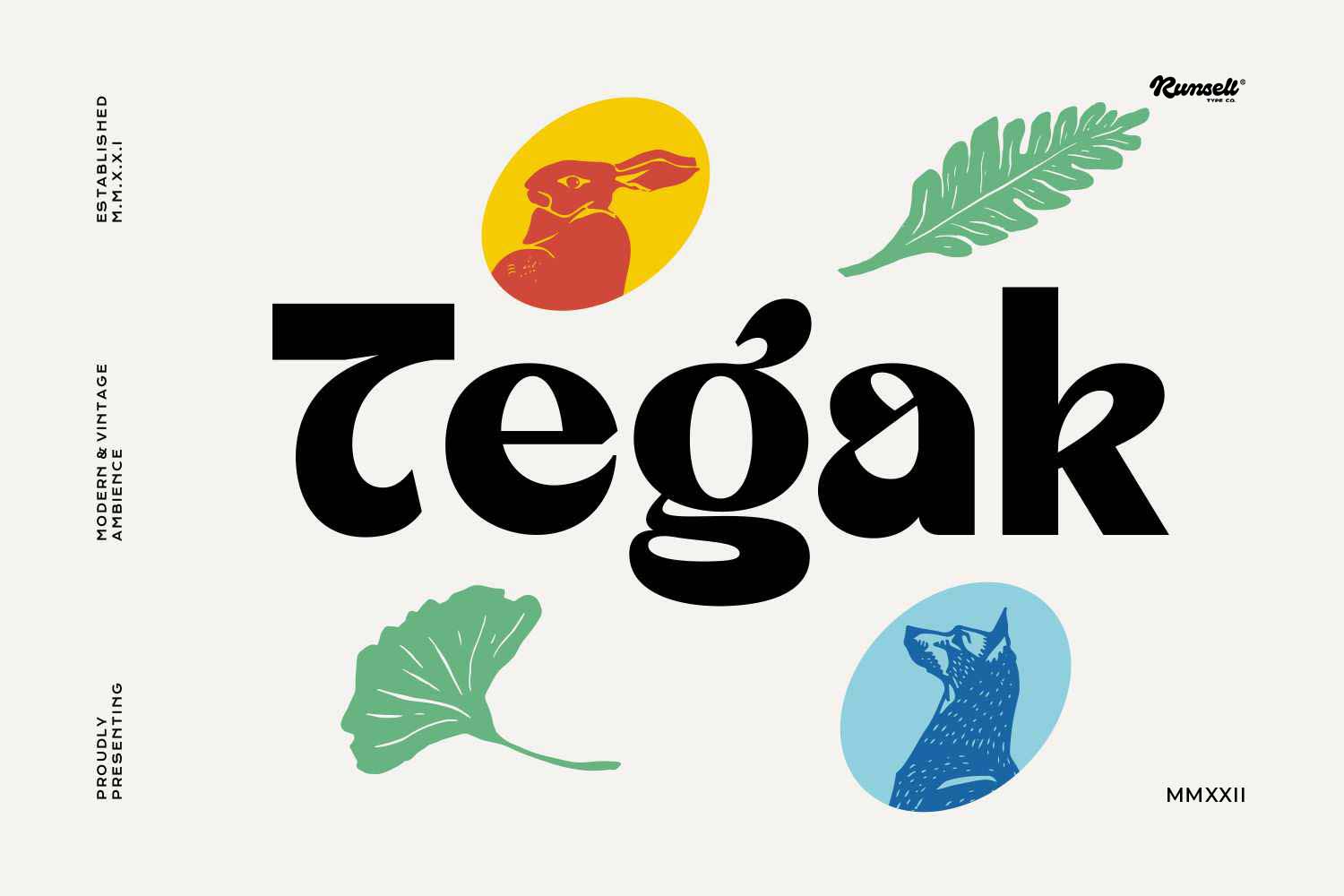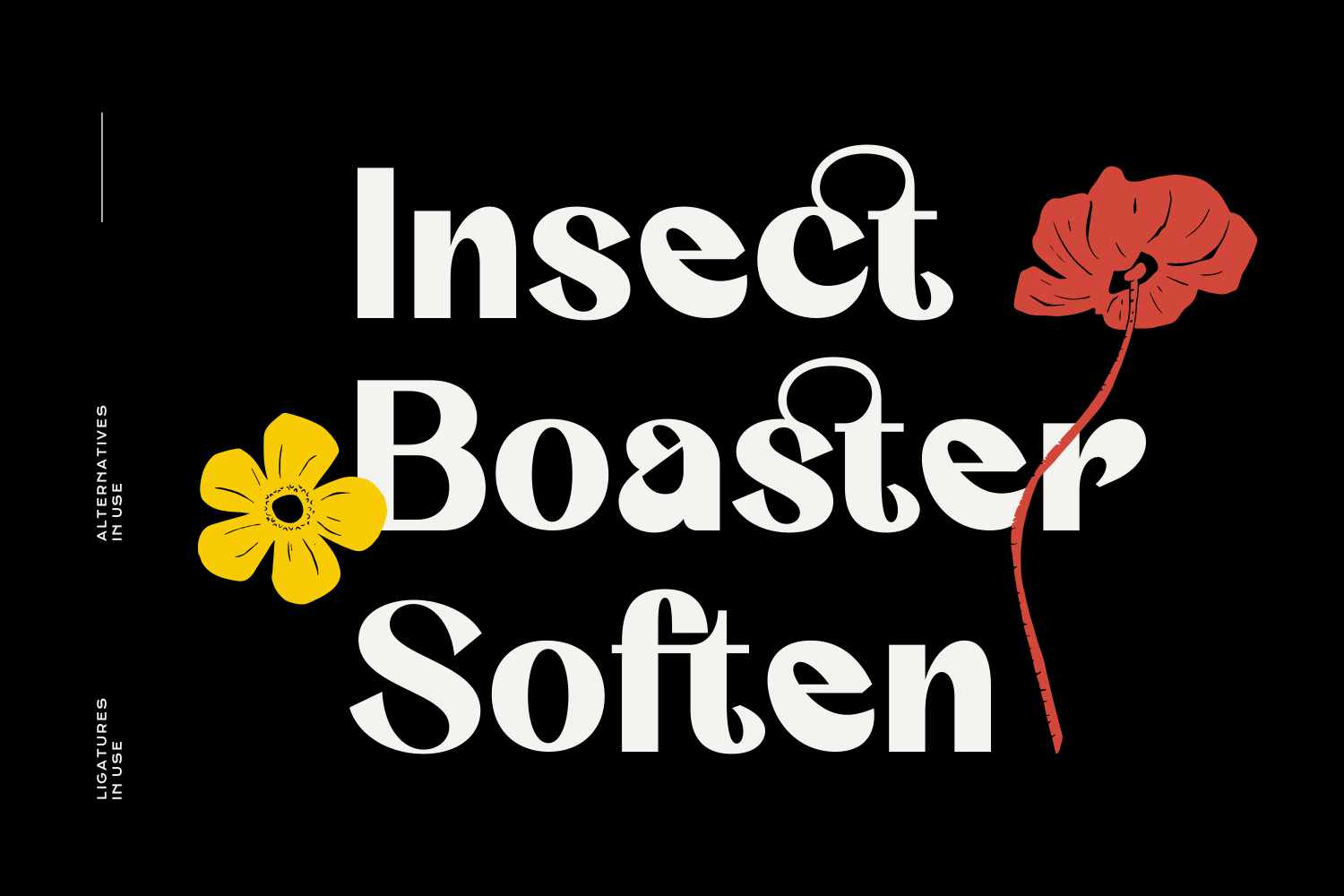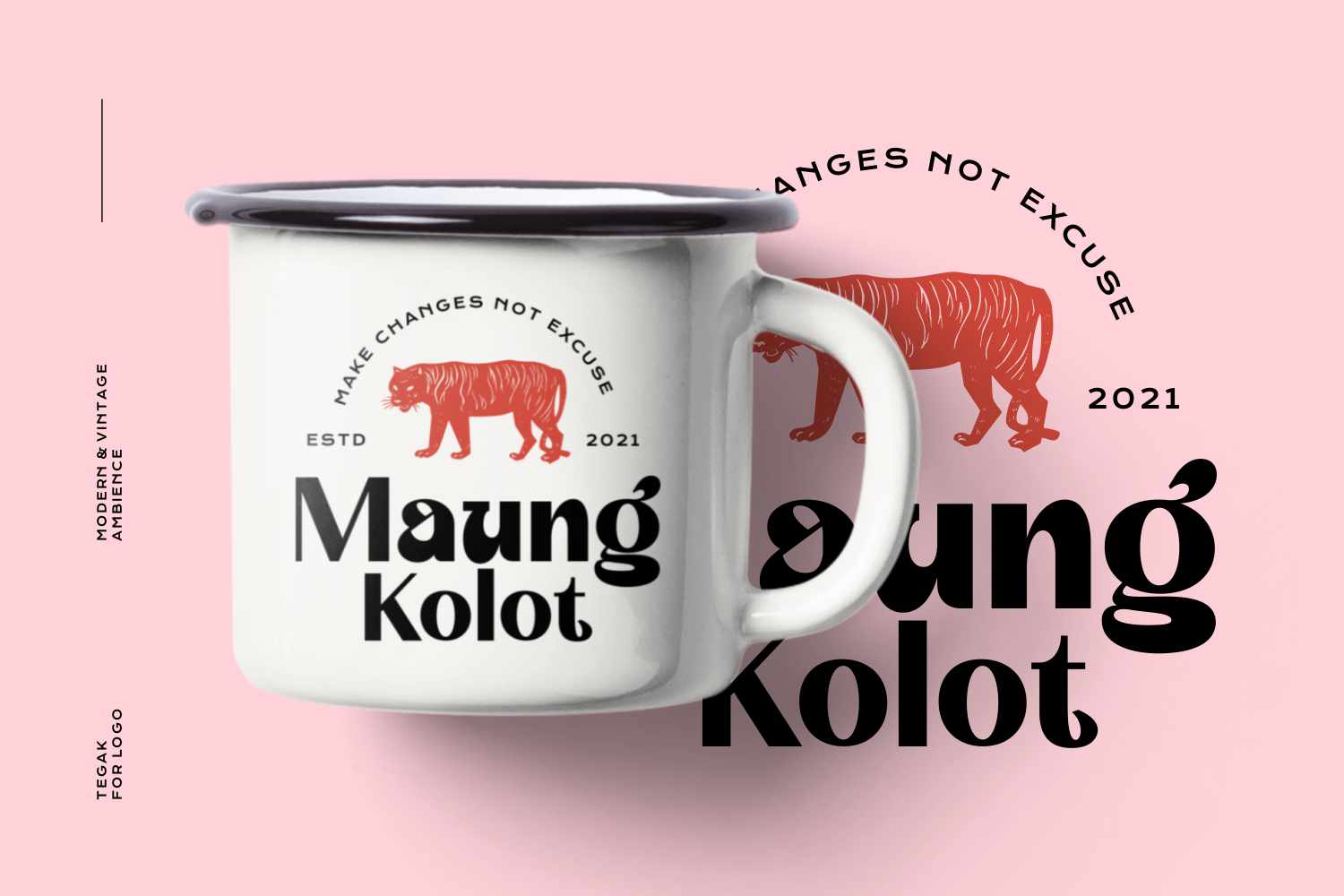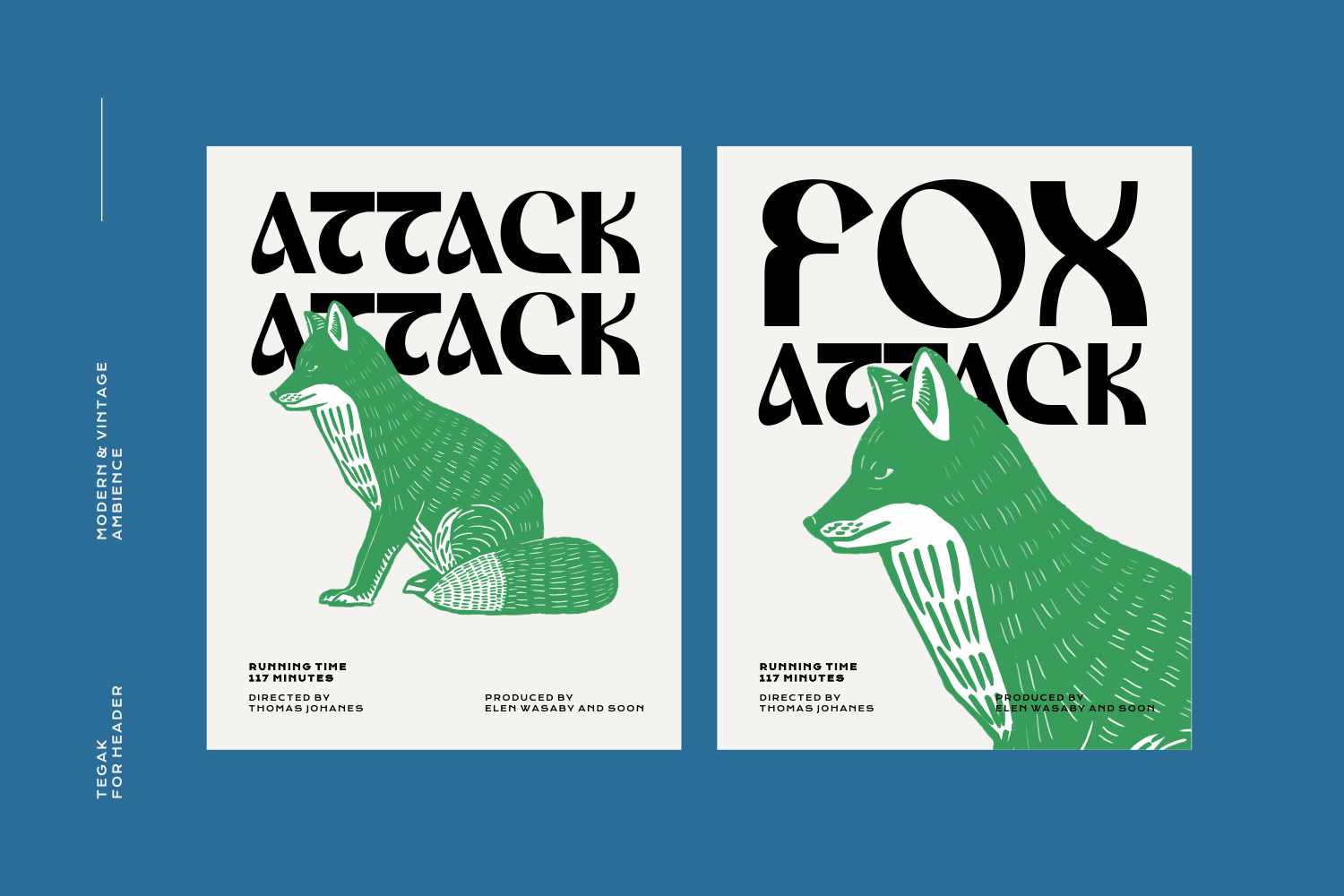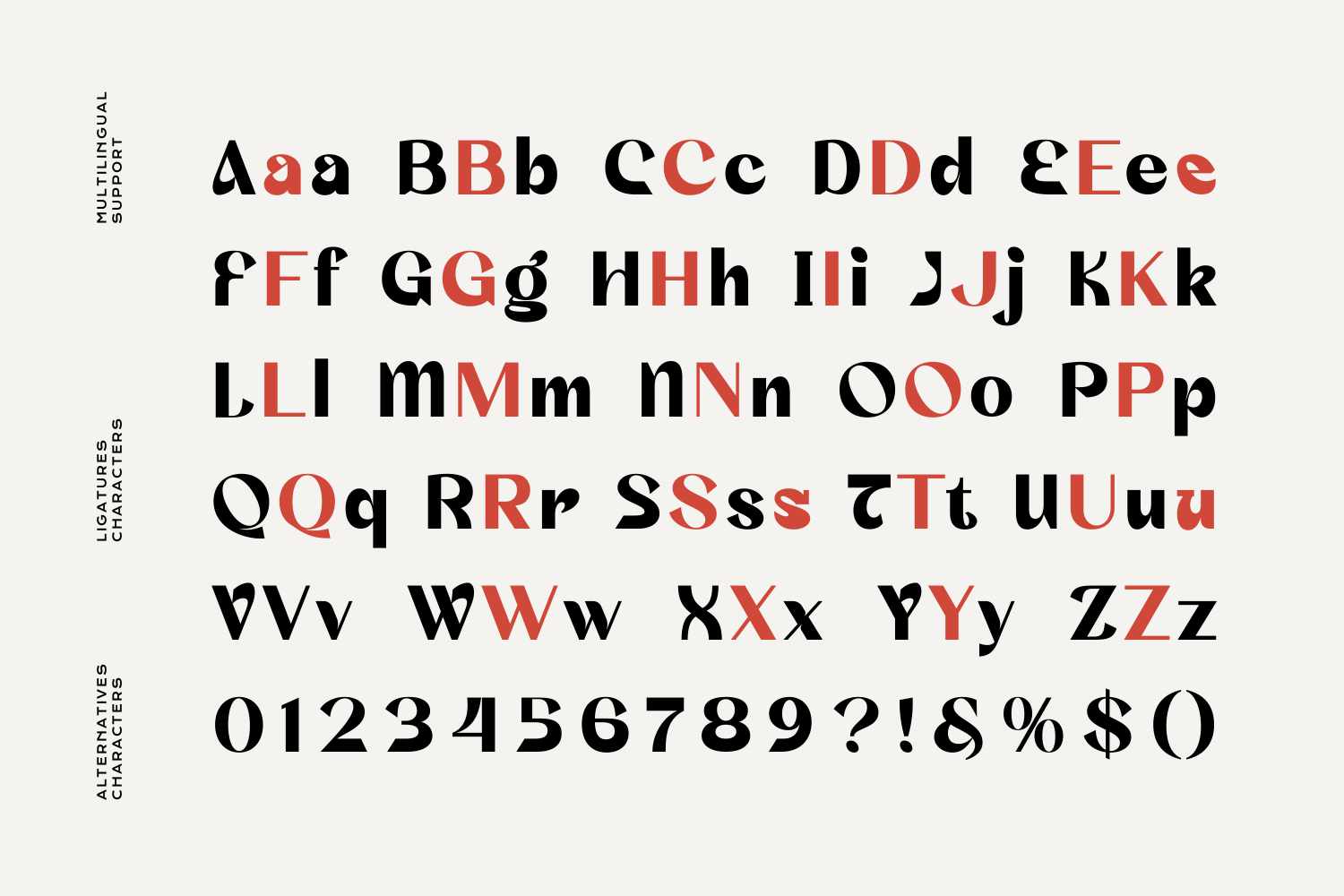
Tegak
Tegak is a bold and stylish display font that blends modern curves with vintage charm. Featuring dramatic contrast and unique letterform cuts, Tegak delivers an impactful presence while maintaining readability. Its expressive personality makes it perfect for branding, editorial headlines, logos, and packaging that seek a memorable, standout style.
Equipped with alternates, ligatures, and multilingual support, Tegak allows for flexible customization to elevate your creative projects. Whether you’re designing a retro-inspired poster, a bold logo, or a chic merchandise label, Tegak offers the perfect balance between sophistication and character.